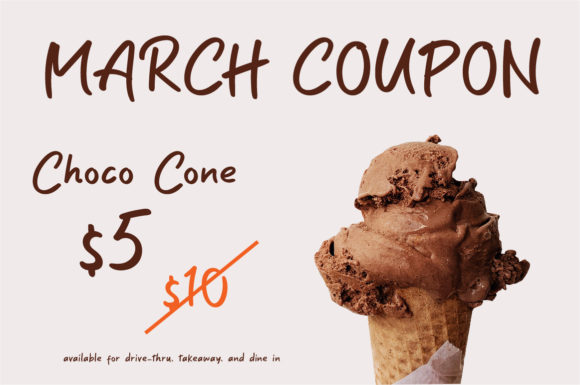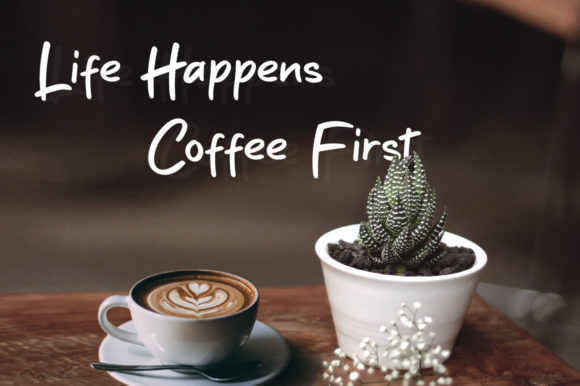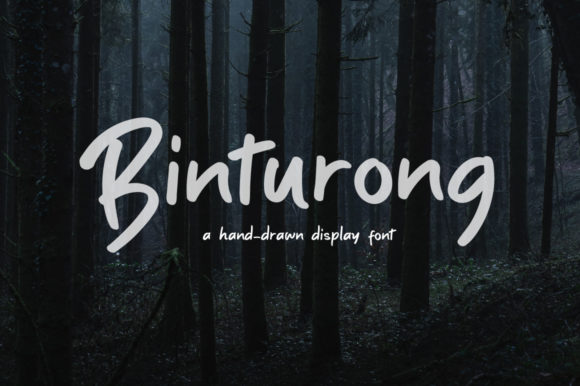
The Binturong Font: A Simple yet Playful Script to Elevate Your Designs
I still remember the design project that led me to discover the Binturong font. I was working on a whimsical branding project for a children’s play area, and I was struggling to find the perfect font that could convey a sense of fun and playfulness. That’s when I stumbled upon Binturong, a simple and playful script font that instantly caught my attention. In this article, I’ll share my experience with Binturong, its features, and how to make the most of it in your designs.
An Honest Review of Binturong Font
What I Love About Binturong ✨
- ✅ Unique yet Simple Design: Binturong’s script design is both unique and simple, making it versatile for various design projects.
- ✅ Playful and Whimsical: The font’s playful nature makes it perfect for designs that require a touch of whimsy and fun.
- ✅ Easy to Read: Despite its playful nature, Binturong remains easy to read, even in smaller sizes.
- ✅ OpenType Features: Binturong comes with OpenType features, including stylistic alternates and glyphs, which can enhance your designs.
While Binturong is an excellent font, it’s not without its quirks. ⚠️ One limitation is that it may not be the best choice for very formal or professional designs, as its playful nature may not fit the tone. Additionally, some users may find that the font’s simplicity can make it look too similar to other fonts.
The Backstory of Binturong Font
Binturong is a font designed with the intention of creating a simple yet playful script font that could be used for a variety of design projects. The designer aimed to create a font that was both unique and easy to read, making it perfect for designs that require a touch of whimsy and fun. The name “Binturong” comes from the binturong, a bearcat native to Southeast Asia, known for its unique and playful nature.
Q: What is the Binturong font best used for?
A: Binturong is a versatile font that can be used for a variety of design projects, including branding, packaging, and digital designs. It’s perfect for designs that require a touch of whimsy and fun.